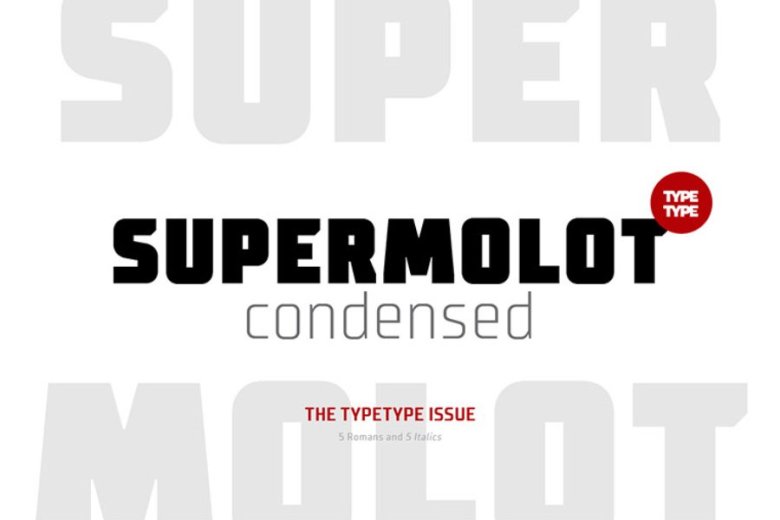
TT Supermolot Condensed Font
TT Supermolot Condensed designed by TYPETYPE. TT Supermolot Condensed is the narrow version of the TT Supermolot fontfamily. Thanks to its open forms, TT Supermolot Condensed fits perfectly into any contemporary technological design and navigation systems. We’ve already seen this fontfamily in the sports theme (as the main font for hockey teams branding), we’ve seen TT Supermolot as the main font inside the gameplay of a popular 3D-shooter.
Information transfer in the high-tech areas is the ideal environment for this fontfamily, also TT Supermolot Condensed fits well into army, space, and innovation themes. We’ve tried to create a maximum number of convenient weights (Thin, Light, Regular, Bold, Black) for you to be able to use this family anywhere, from mobile apps and web pages to big state fairs branding.